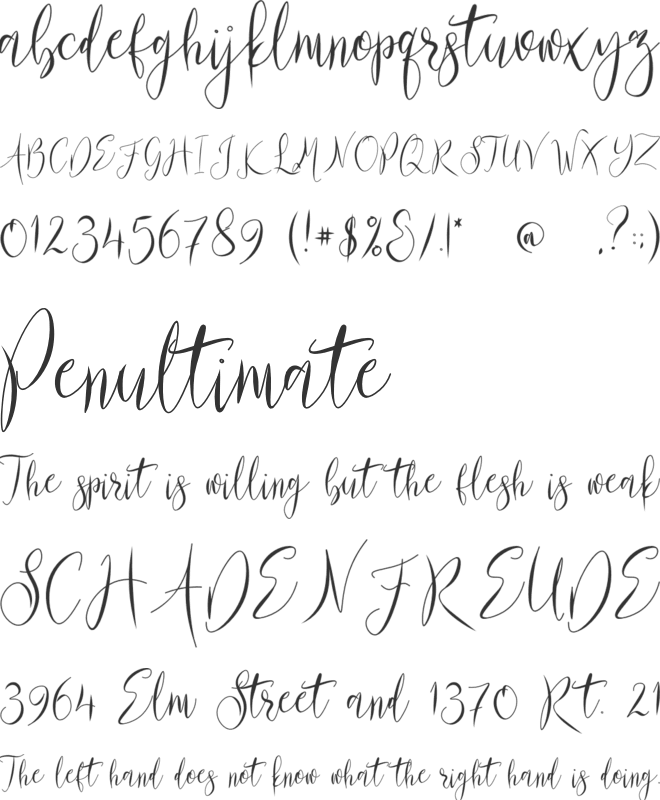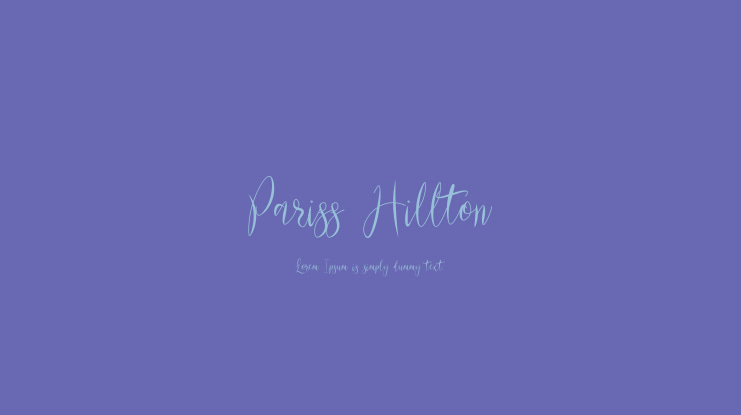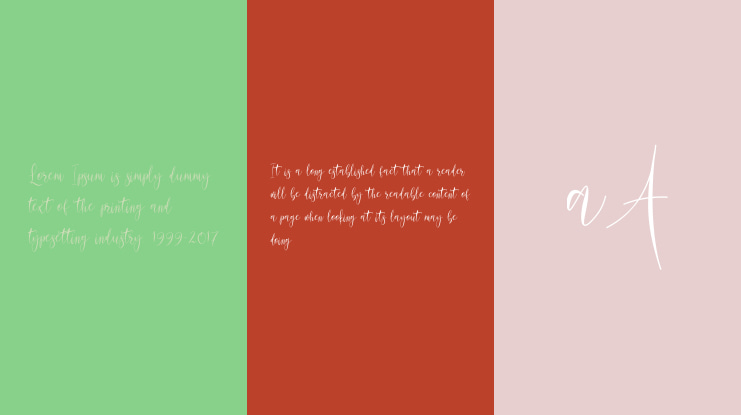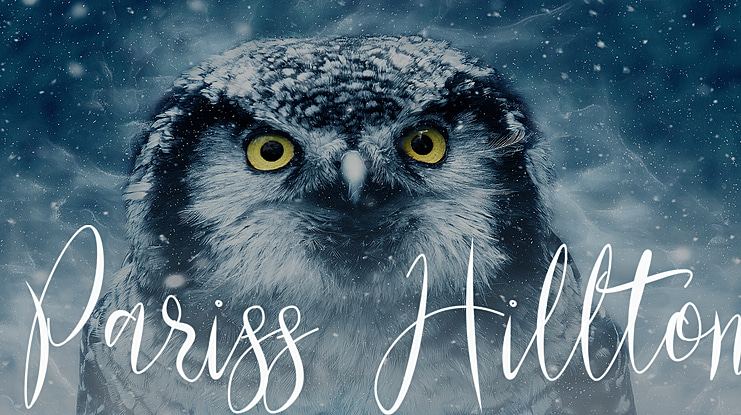
Pariss Hillton Font Family
Pariss Hillton font with script styles. A collection of letters and numbers suitable your projects also great for Logotype, Branding Design, Logo Design, Digital Lettering Arts, T-Shirt/Apparel, Poster, Magazine, Signs, Advertising Design, and any design needs.